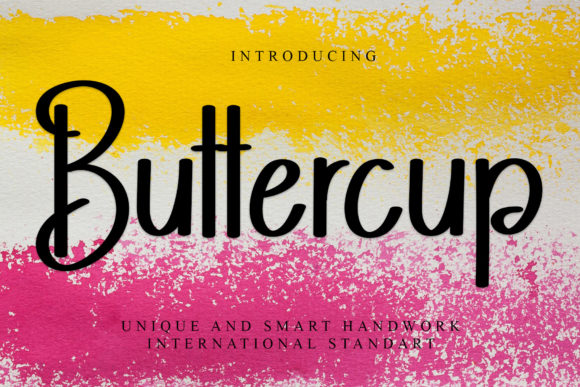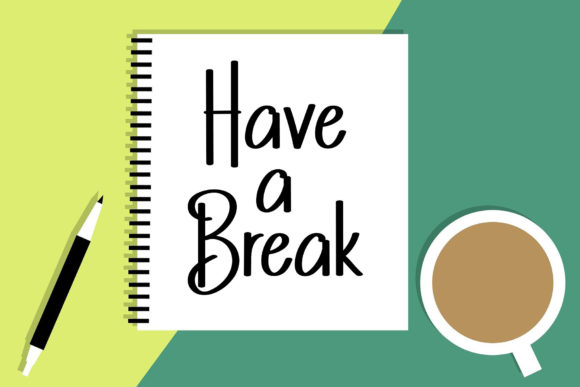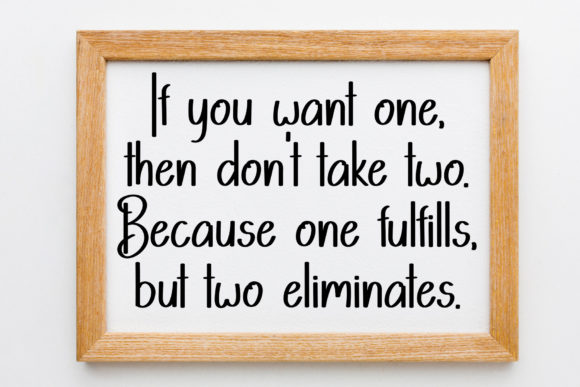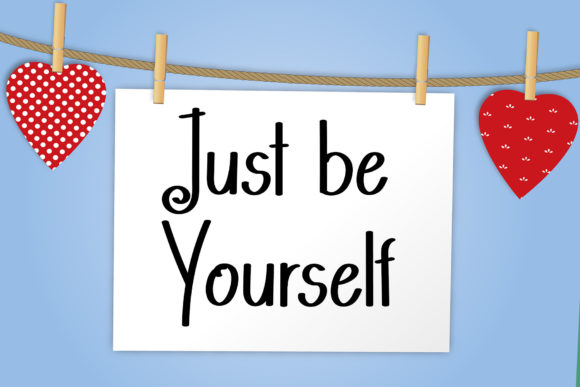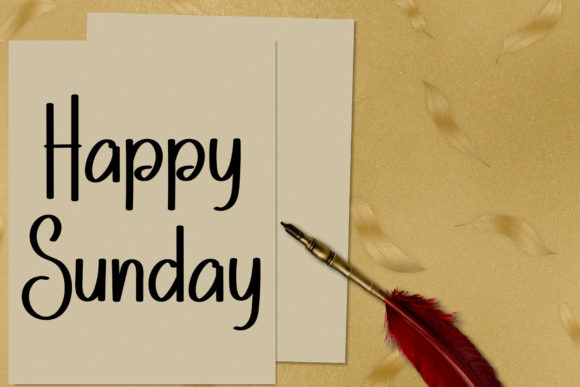
Buttercup Font
About Buttercup Font
Buttercup is a cute and minimalist handwritten font that brings a touch of sweetness to your designs. With its charming and lively style, this font is a wonderful choice for adding a vibrant and joyful touch to your projects.
The simplicity and playfulness of Buttercup make it versatile and appealing. Whether you’re designing logos, creating greeting cards, or crafting social media graphics, this font will infuse your designs with a delightful and energetic atmosphere.
With its handwritten aesthetic, Buttercup adds a personal and authentic feel to your text. Each letter carries a sense of whimsy and liveliness, making it perfect for capturing attention and creating a connection with your audience.
Let Buttercup be the ingredient that brightens up your designs and brings a smile to people’s faces. Whether you’re designing for children, creating cheerful brand identities, or adding a touch of charm to your illustrations, this font will enhance the visual experience and evoke a sense of joy.
Embrace the sweet and lively style of Buttercup and watch as your designs come alive. Let this font be your creative companion in crafting engaging and playful visuals that leave a lasting impression.